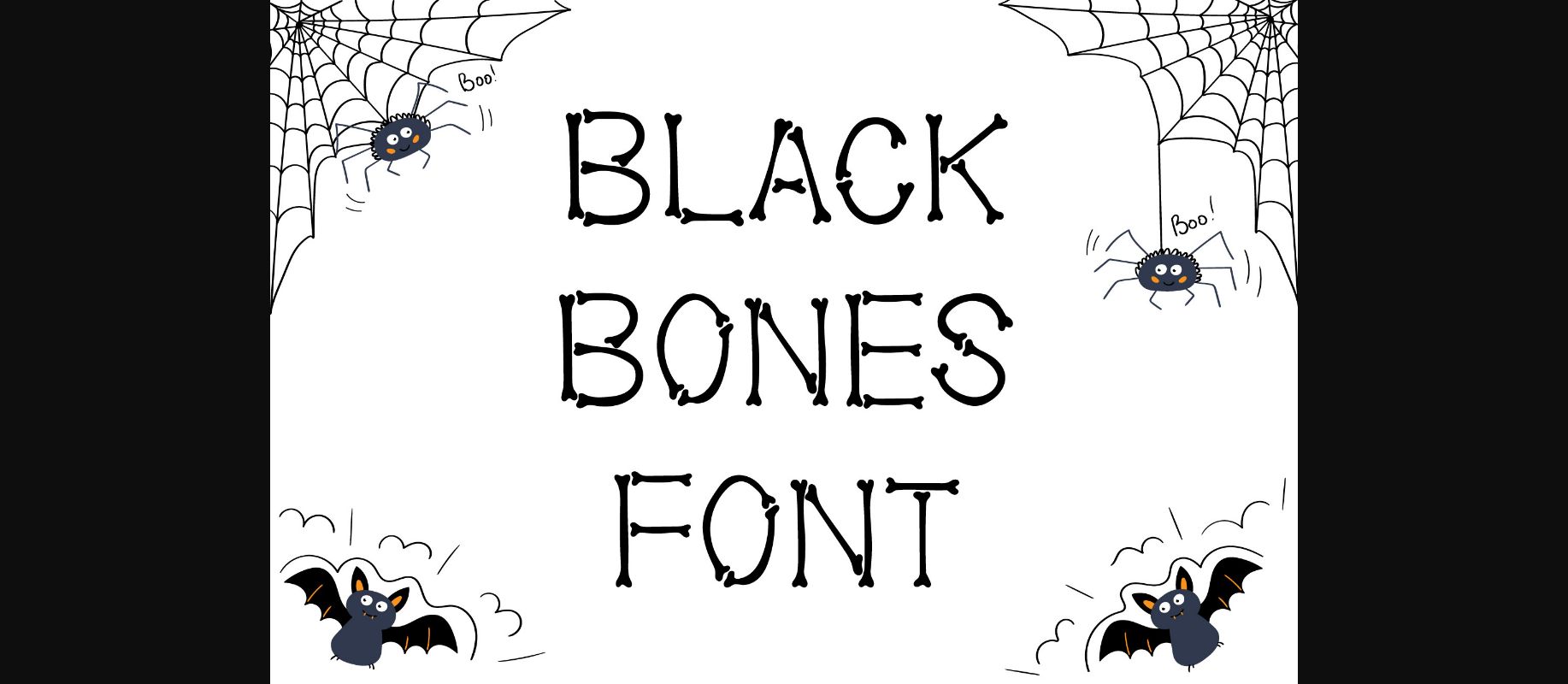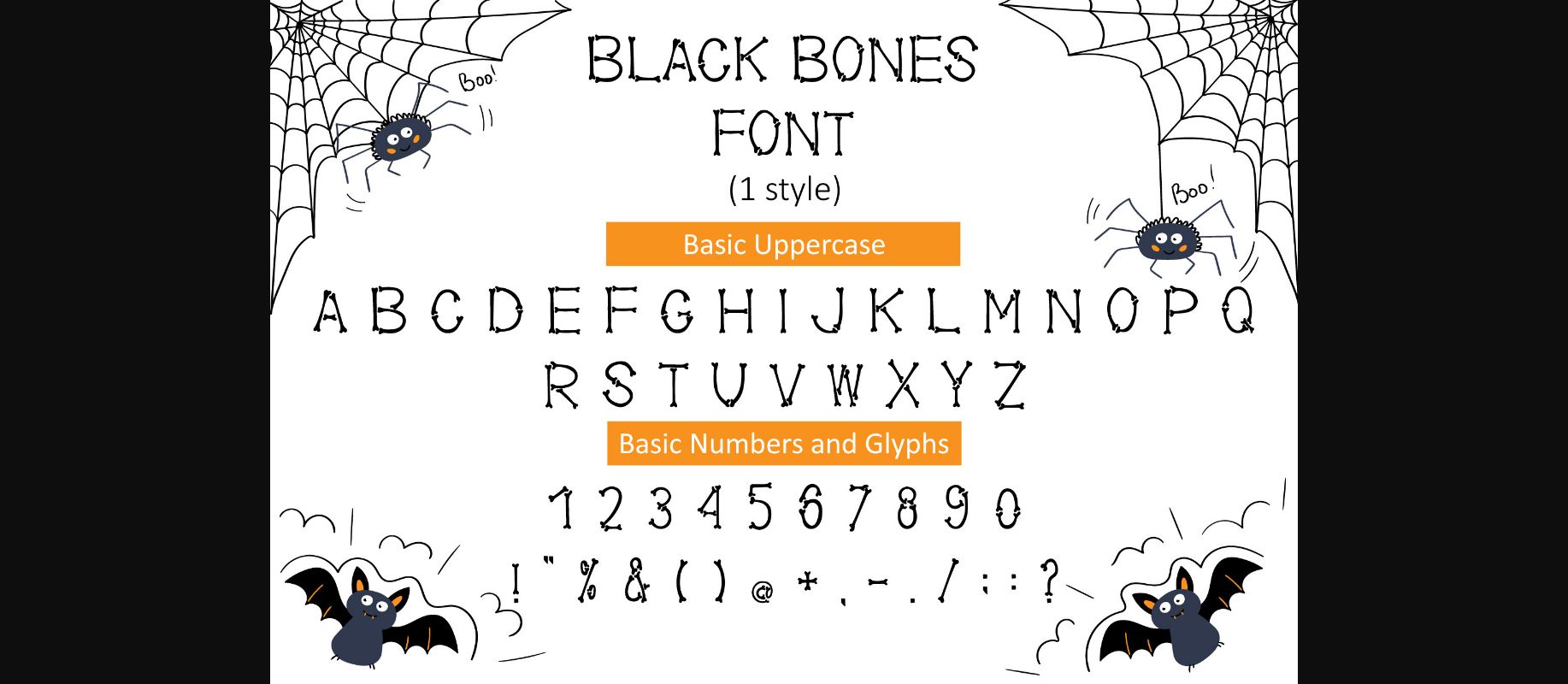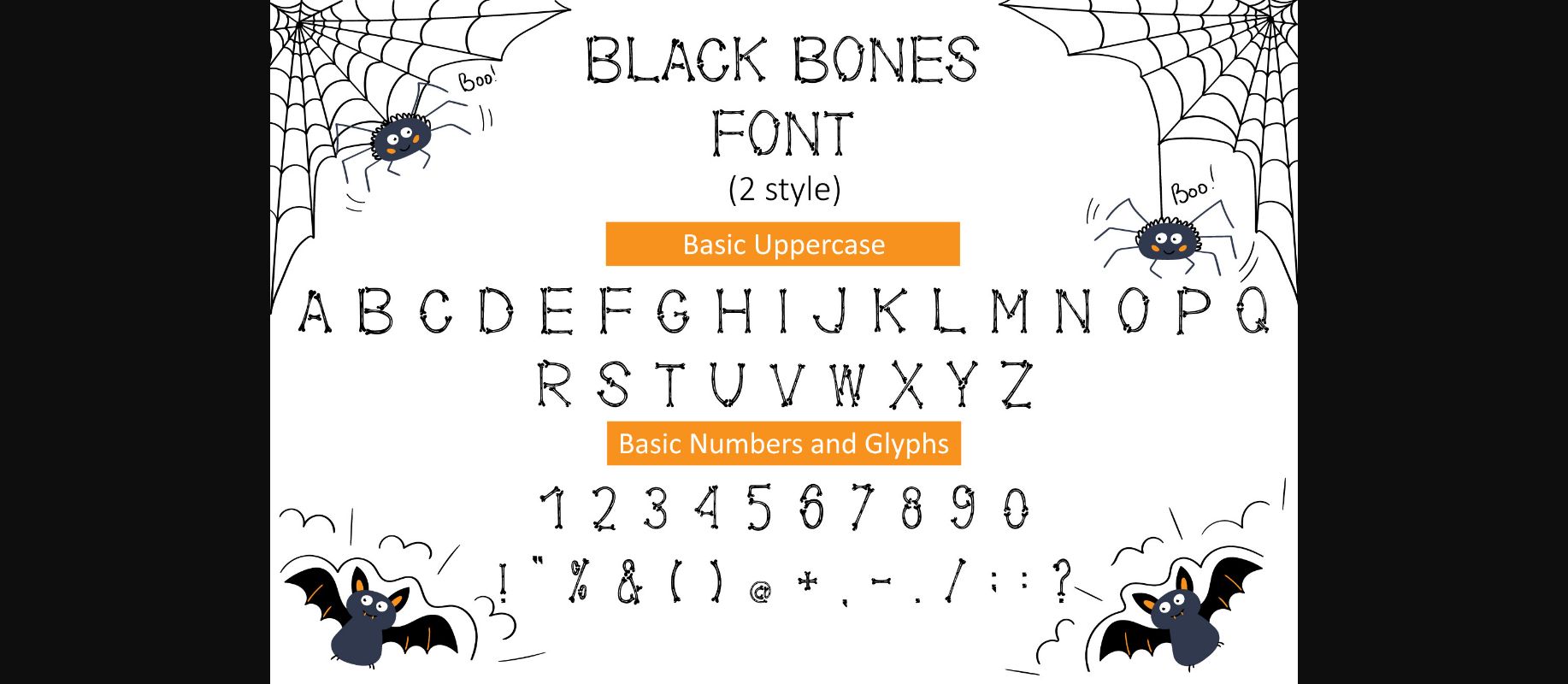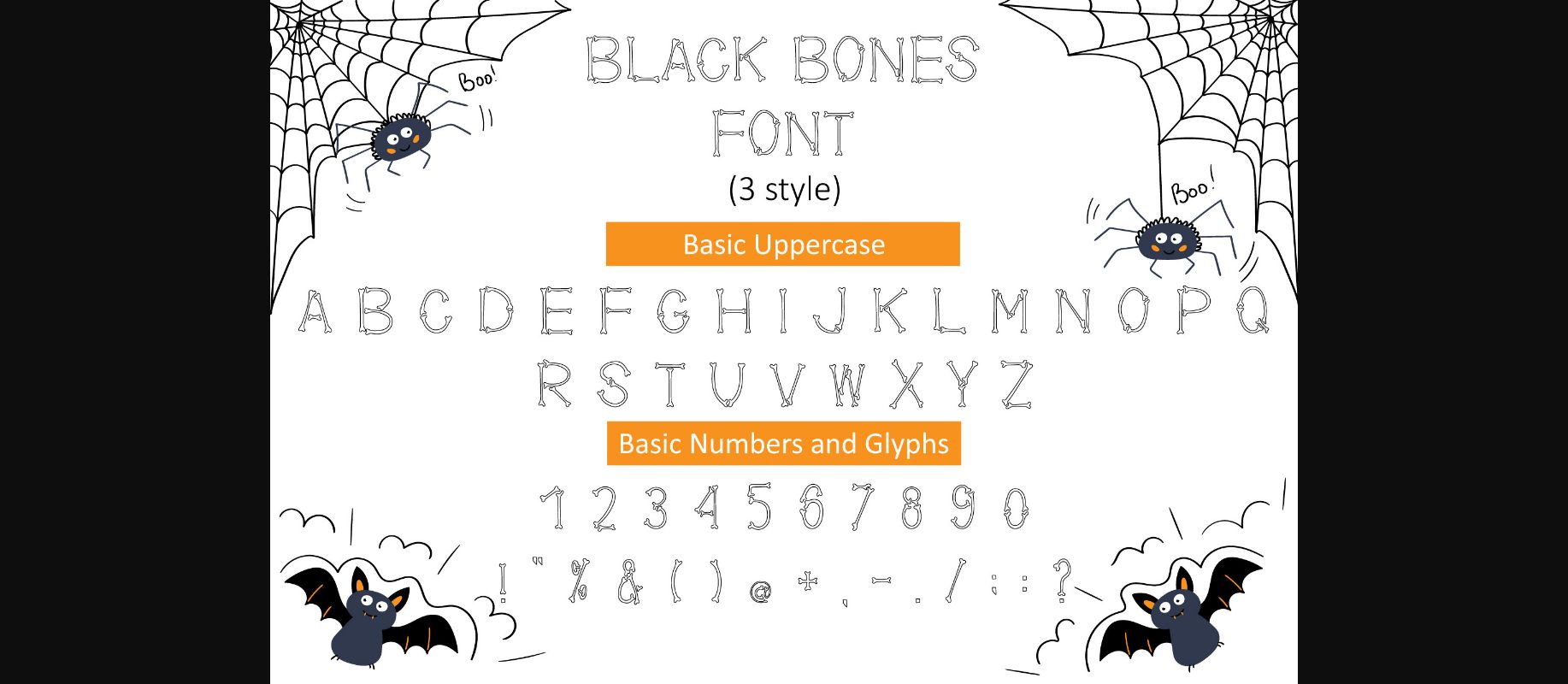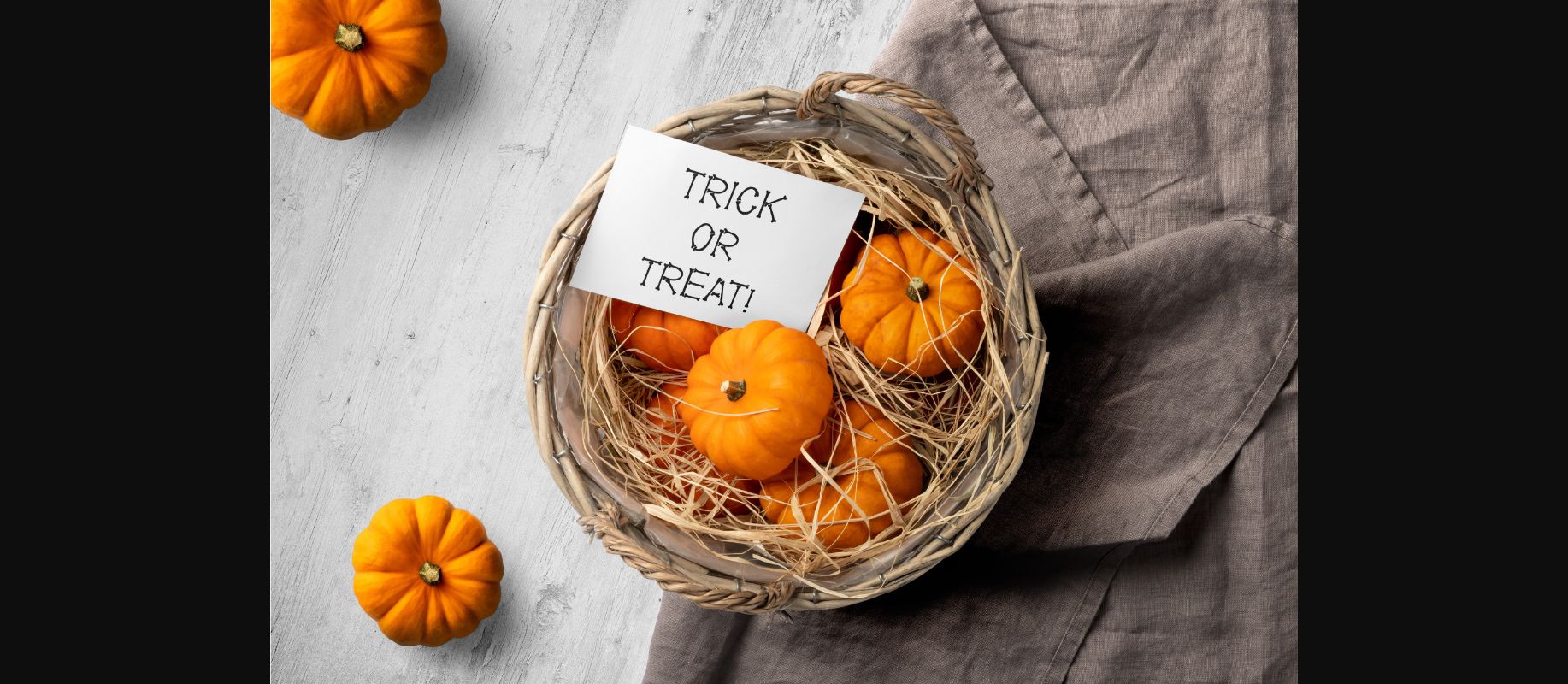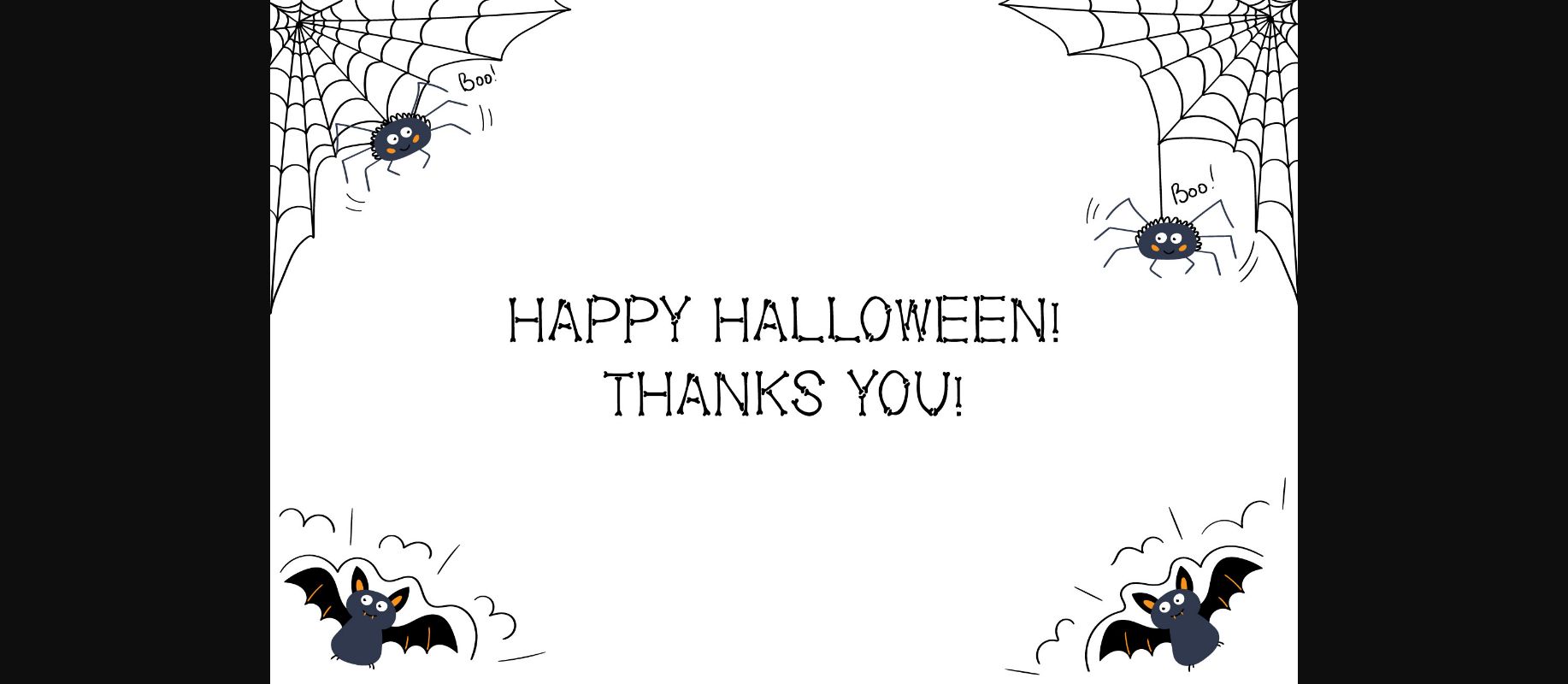
HomeDecorative FontsBlack Bones Font Decorative Fonts Black Bones Font FacebookXPinterestWhatsApp 1 of 8 ... Black Bones Font Poster 2... Black Bones Font Poster 3... Black Bones Font Poster 4... Black Bones Font Poster 5... Black Bones Font Poster 6... Black Bones Font Poster 7... Black Bones Font Poster 8... About Black Bones Font Black Bones is a great Halloween decorative font. It will look original and spooky on a variety of design ideas. This unique font will add a creepy touch to each of your projects! DOWNLOAD NOW People also explored Skylar Font Calligraffiti Pro Font Gentle Space Font Deloissta Font Happy Children Font Delissa Script Font Martha Font Lavender Font Farmhouse Planner Font 283 0 TagsBlack Bones Font Previous articleSpring Daisy FontNext articlePine Apple Font LEAVE A REPLY Cancel reply Comment: Please enter your comment! Name:* Please enter your name here Email:* You have entered an incorrect email address! Please enter your email address here Website: Save my name, email, and website in this browser for the next time I comment. Personal Use Free Royal Bengal Tiger Personal Use Free Read more about this font Engine Personal Use Free Read more about this font Shelly Personal Use Free Read more about this font Motherblood Personal Use Free Read more about this font BLOG 5 Fonts That Will Dominate Design Trends in 2026 5 Fonts for 2026 That Will Dominate Design Trends Typography plays a critical role in visual communication, and as we look ahead to 2026, it’s... Free Fonts Risk: Why Free Fonts Can Be Dangerous for Designers Fonts That Capture the Spirit of New York City Free vs Paid Fonts: Why Investing in Premium Fonts Is Worth It